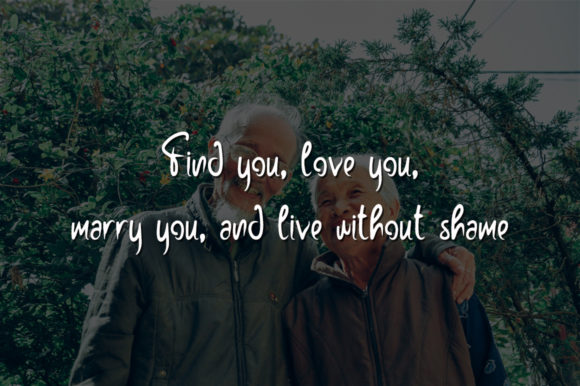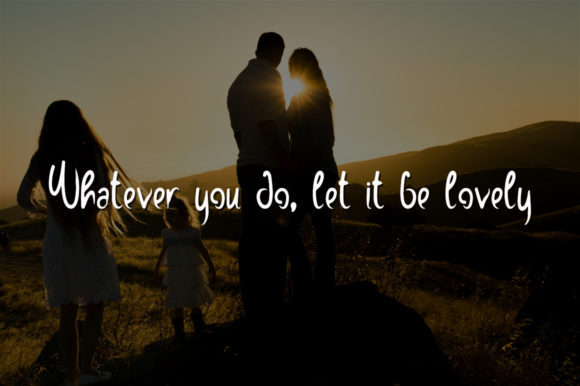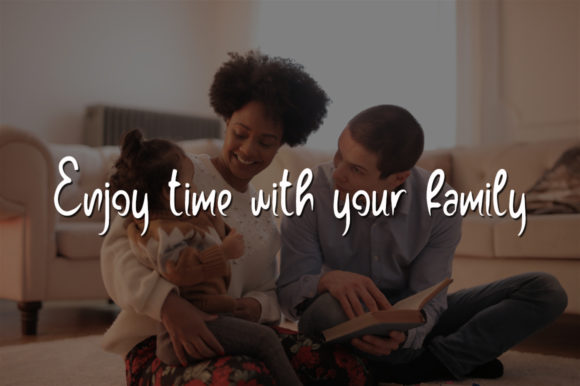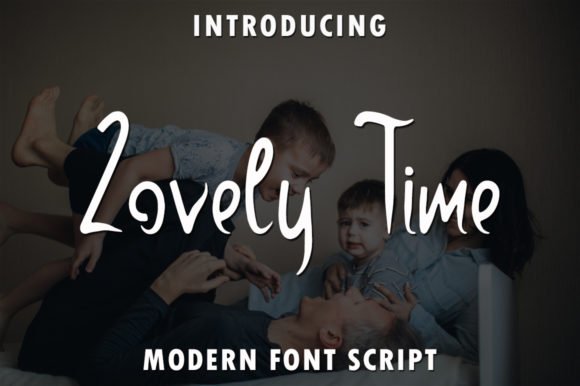
Introduction to Lovely Time Font
Lovely Time is a simple, relaxed and casual handwritten font.
This gentle font will look gorgeous on a variety of design ideas .
Why Choose Lovely Time Font?
Lovely Time Font offers exceptional quality and versatility, making it a valuable addition to your design toolkit. Whether you’re creating for personal projects or commercial use, Lovely Time Font delivers professional results.